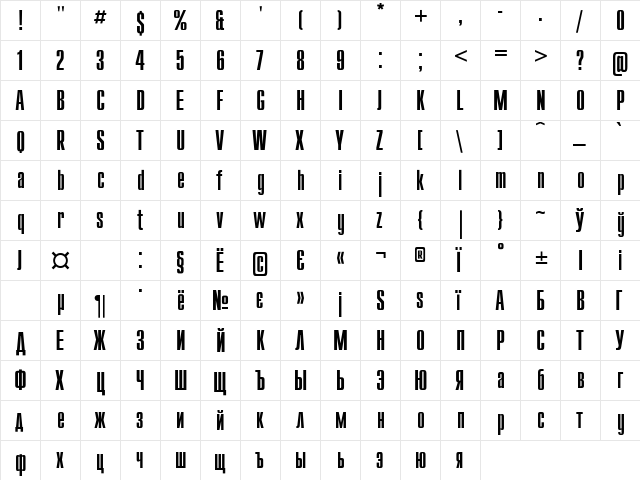
UkrainianCompact Regular
Design Context for UkrainianCompact Typeface
UkrainianCompact takes a measured approach to typography — its balanced proportions and neutral character make it a reliable workhorse for both digital and print work. Its narrow stance lets it pack a punch even in space-constrained designs.
Pro Tip: Use UkrainianCompact in both headline and body roles to test its range before committing to a single application.